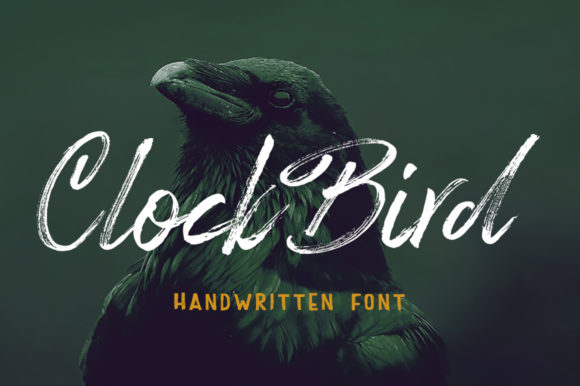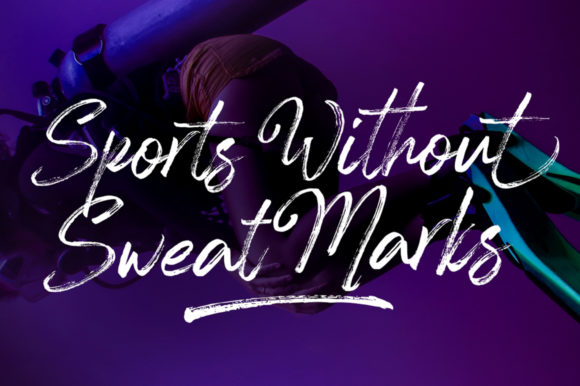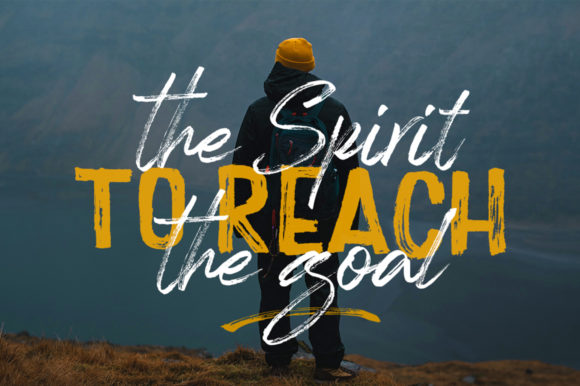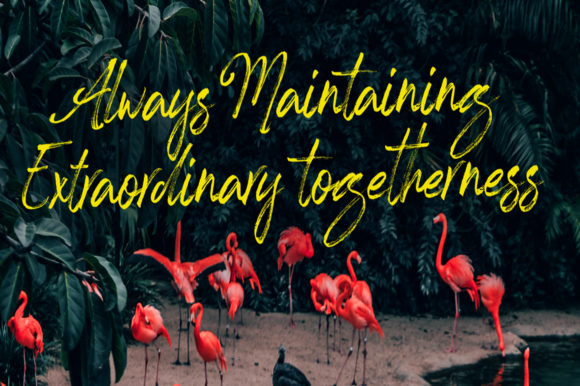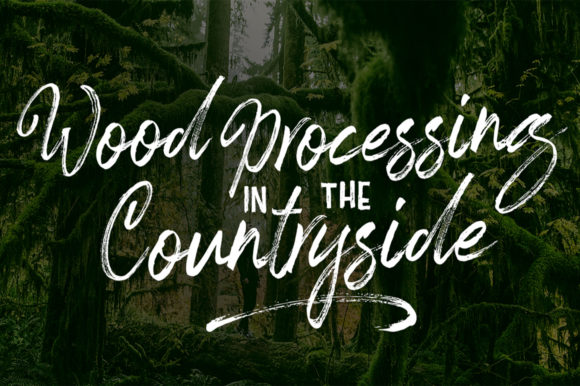
Clock Bird Font
About Clock Bird Font
Clock Bird is a casual, fun handwritten font, created by using a brush pen. Clean and a little bit quirky, this font is the perfect fit for all of your logos, branding, social media, and crafty DIY projects.